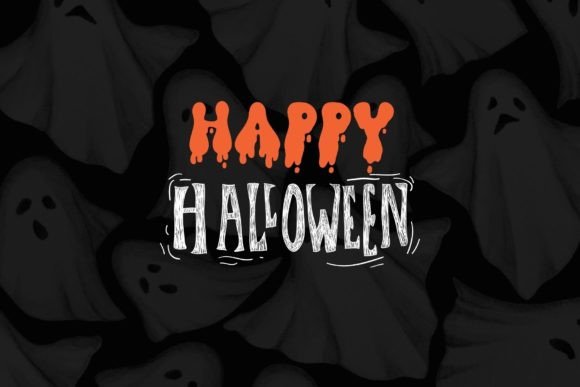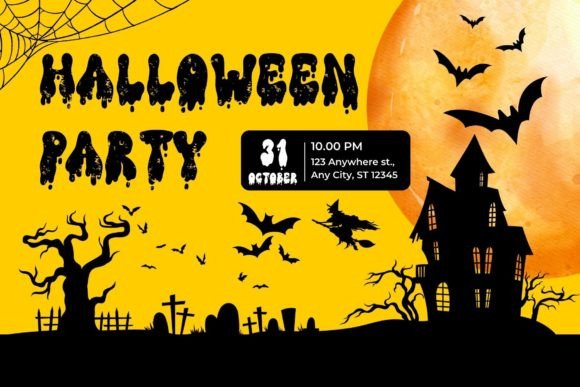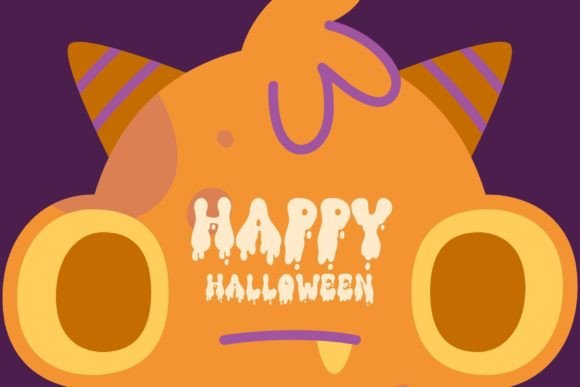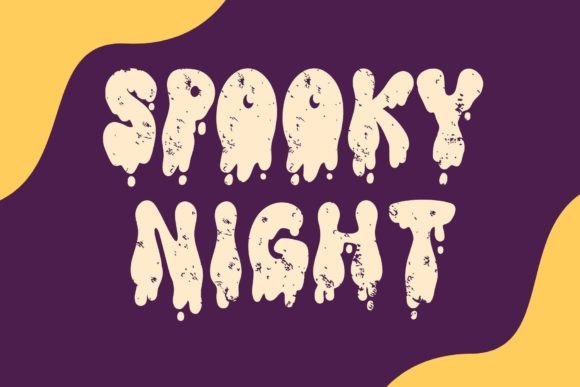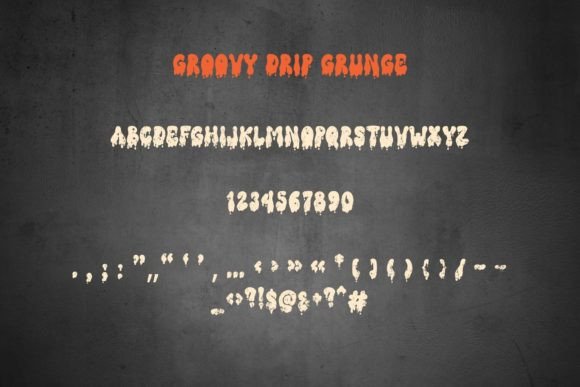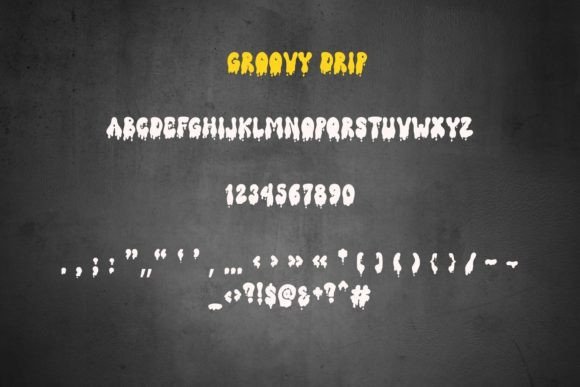
The Groovy Drip Font: A Spooky-ooky Addition to Your Halloween Designs
Ah, the thrill of working on a Halloween design project! The creativity, the spookiness, the excitement of bringing a eerie atmosphere to life. But, let’s be real, sometimes the scariest part is finding the perfect font to match your creepy vibes. I recall working on a project last year, searching for hours for that one font that would make my Halloween invitation design pop. That’s when I stumbled upon the Groovy Drip font, and trust me, it was love at first sight! 💕
- 👻 Unique and quirky design with blood dripping and bones-like letters that screams Halloween!
- 🎃 Perfect for creating spooky invitations, postcards, posters, and headings for a Halloween event
- 🕷️ Works great in various design settings, from digital to print
- 🤔 Some users might find the font a bit too distressed or rough for their taste
- ⚠️ Limited use outside of Halloween-themed designs, might not be suitable for other types of projects
The Groovy Drip font was inspired by the classic horror movies of the 1970s and 1980s. The designer wanted to create a font that captured the spirit of Halloween and the thrill of the spooky season. With its unique blend of blood dripping and bones-like letters, Groovy Drip is sure to add a touch of horror to any design.